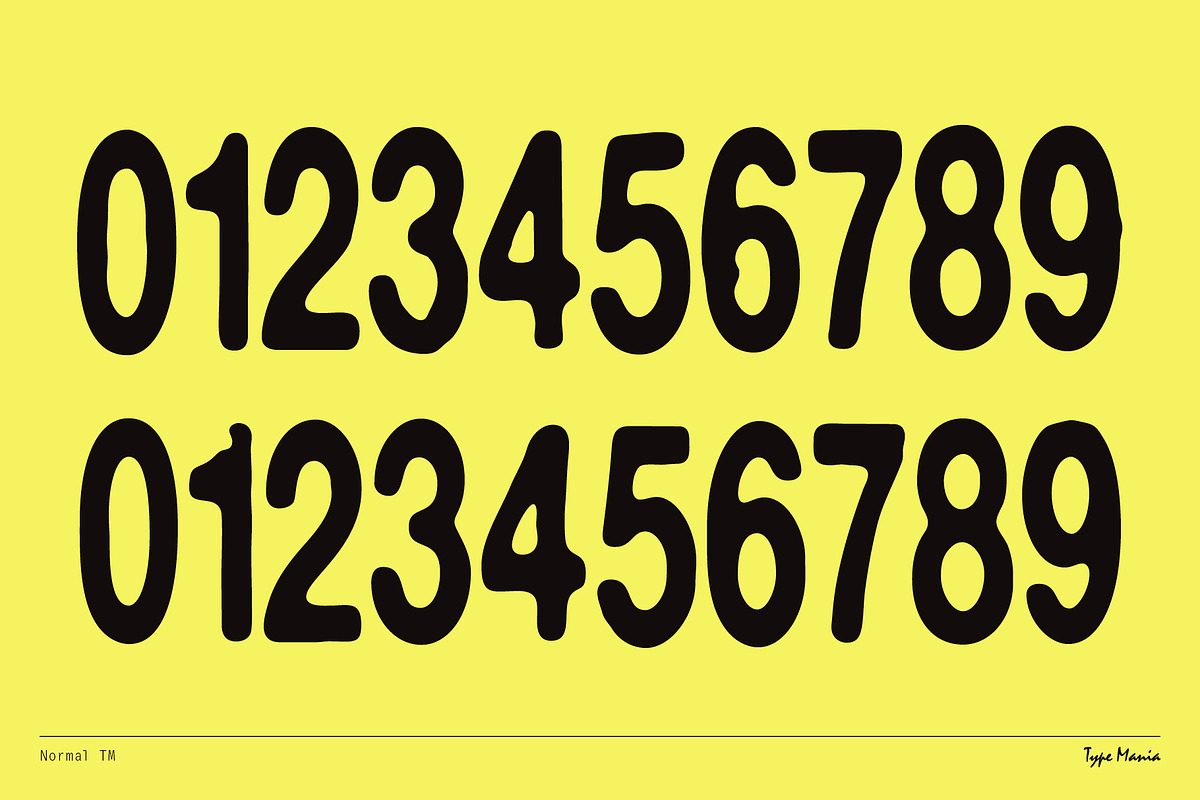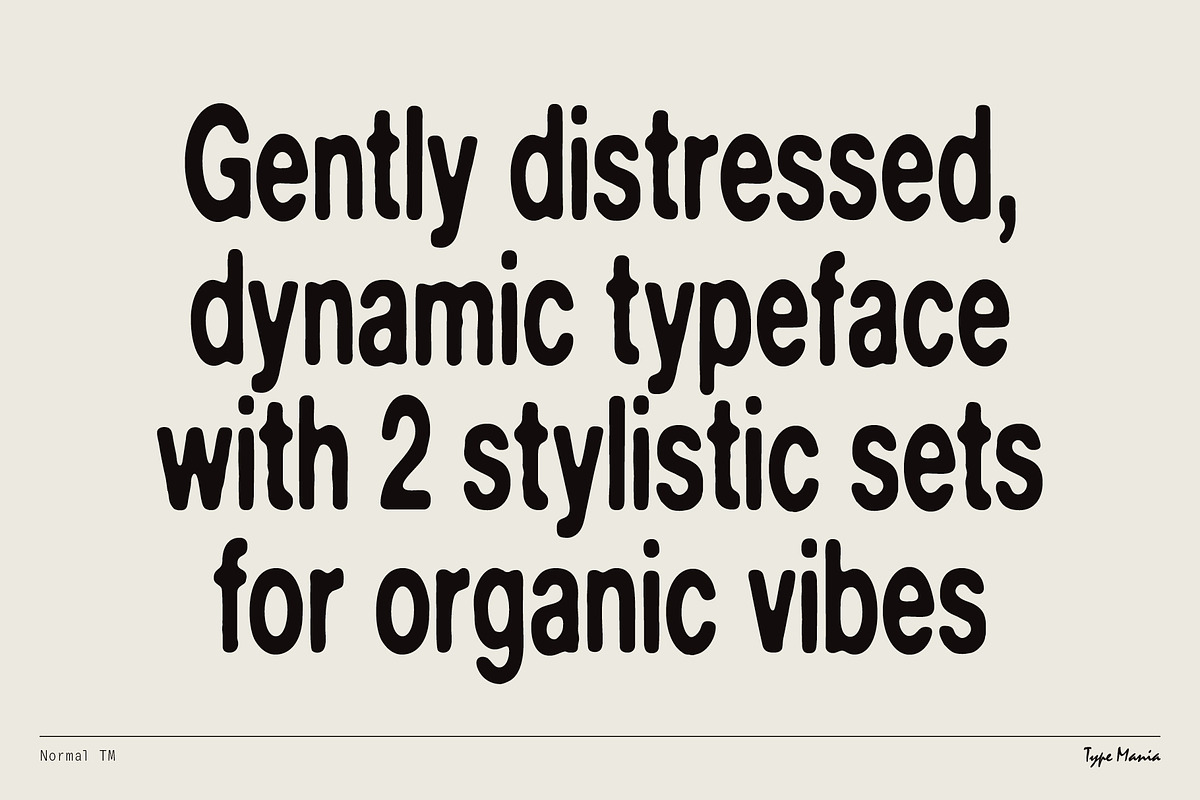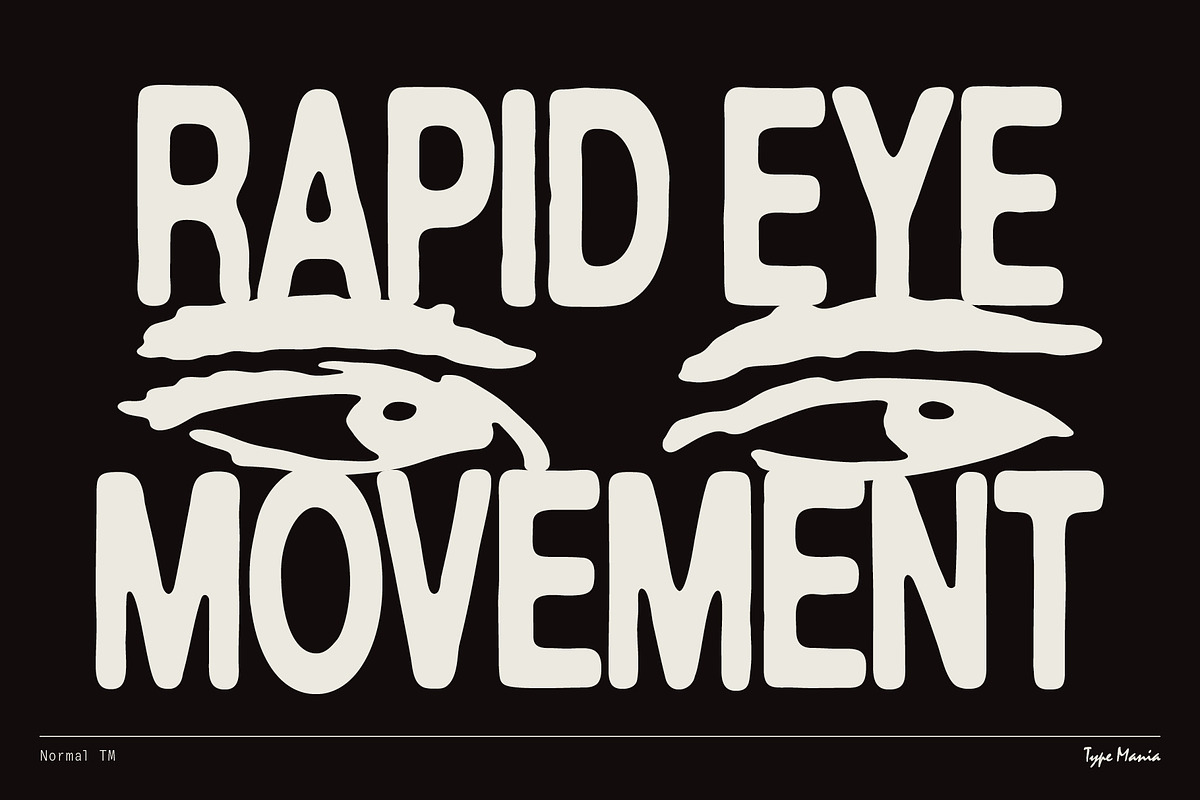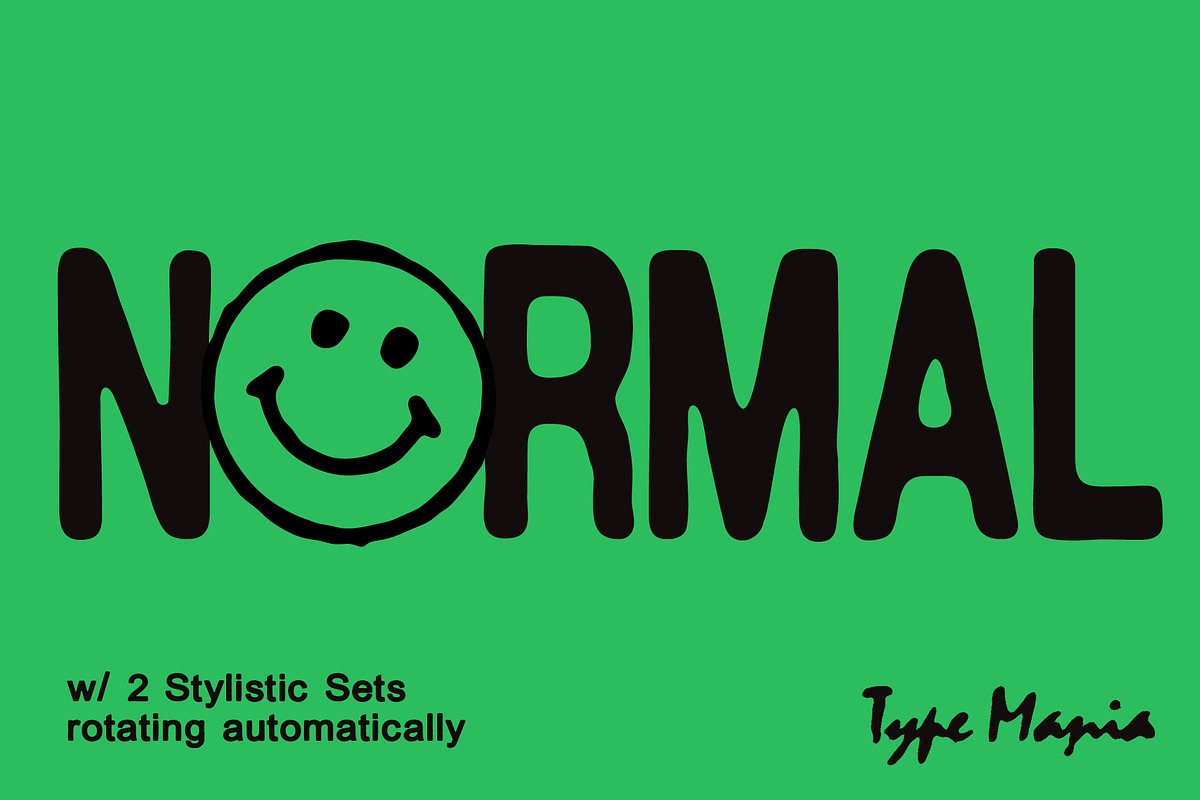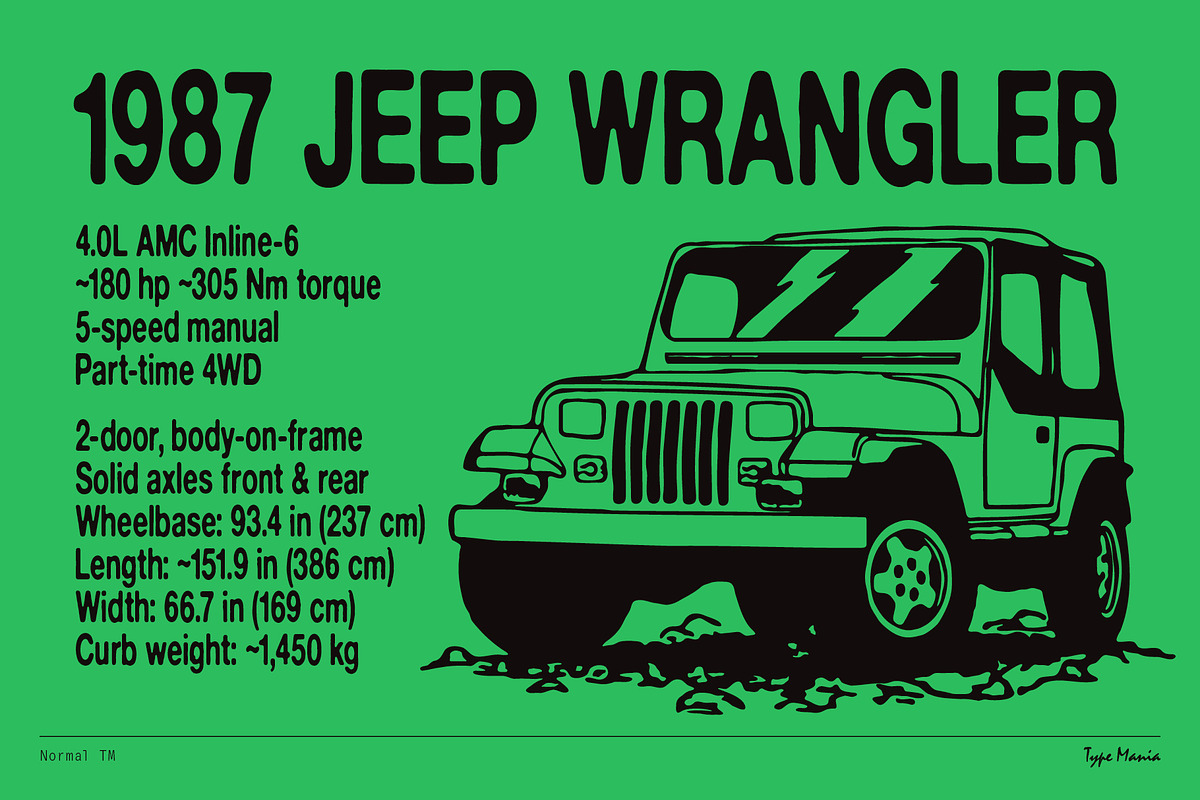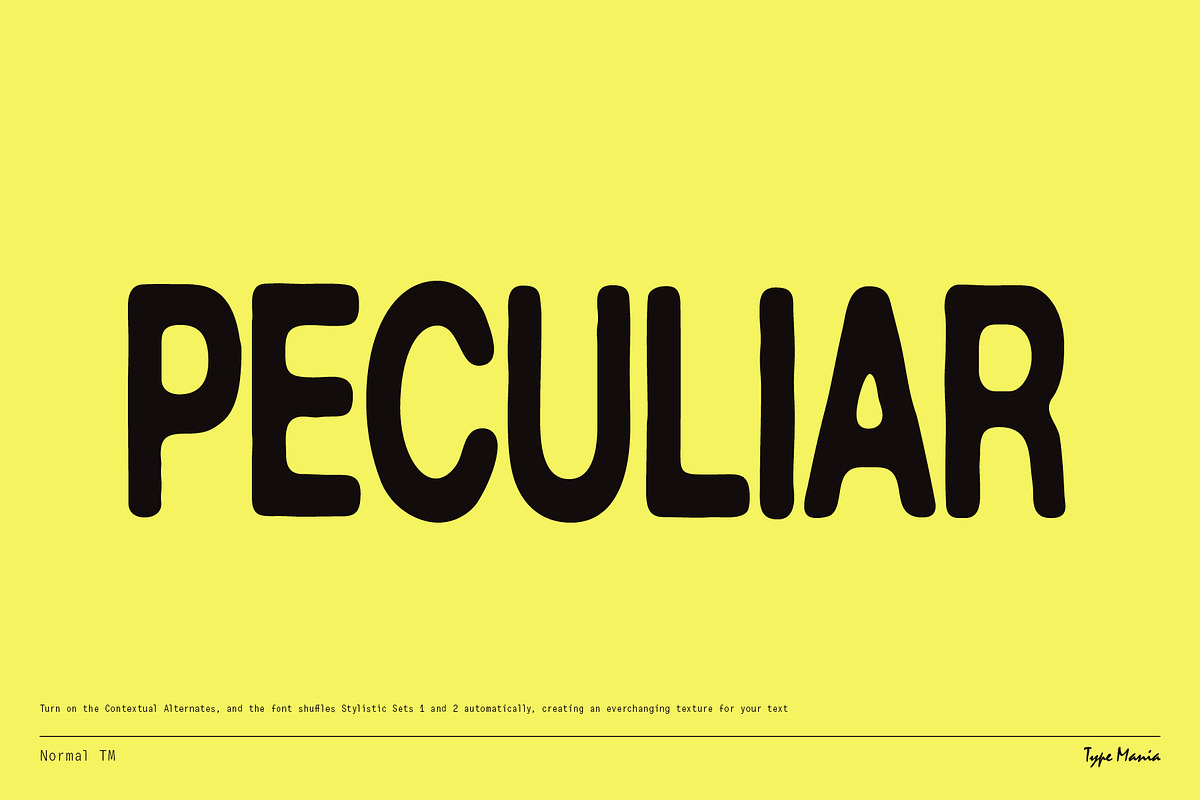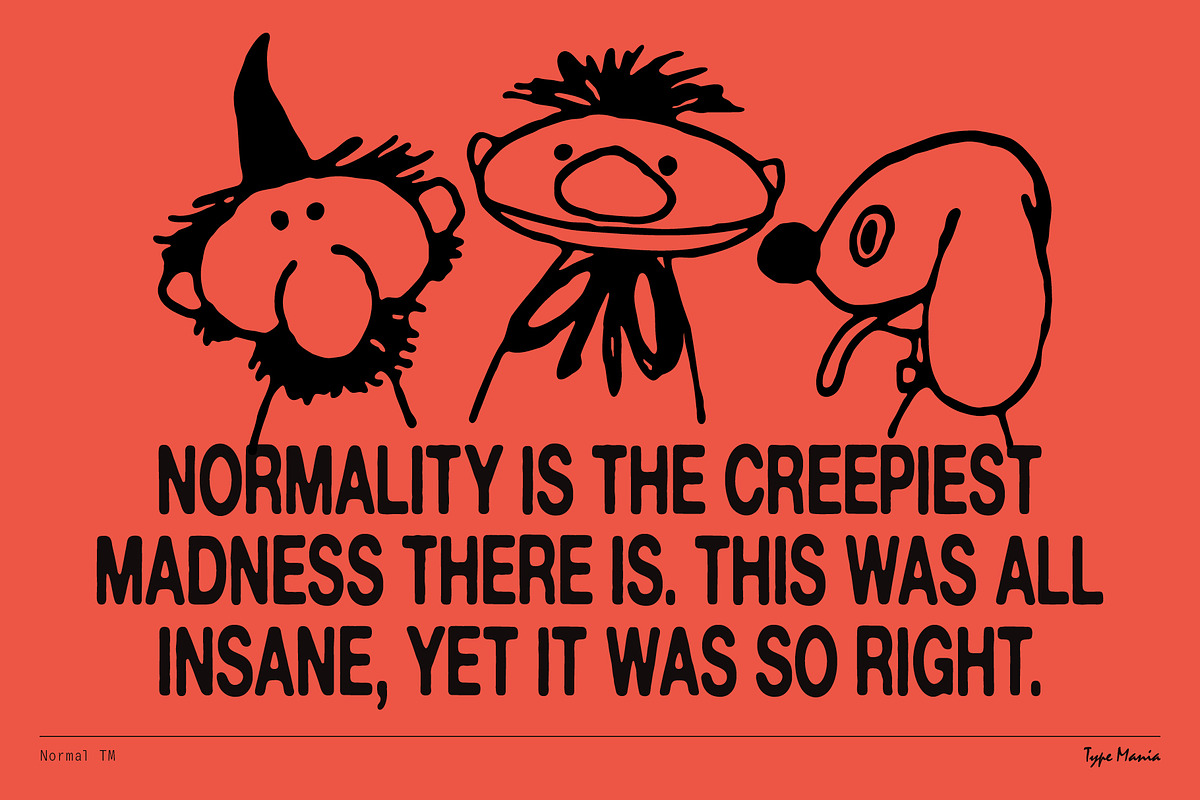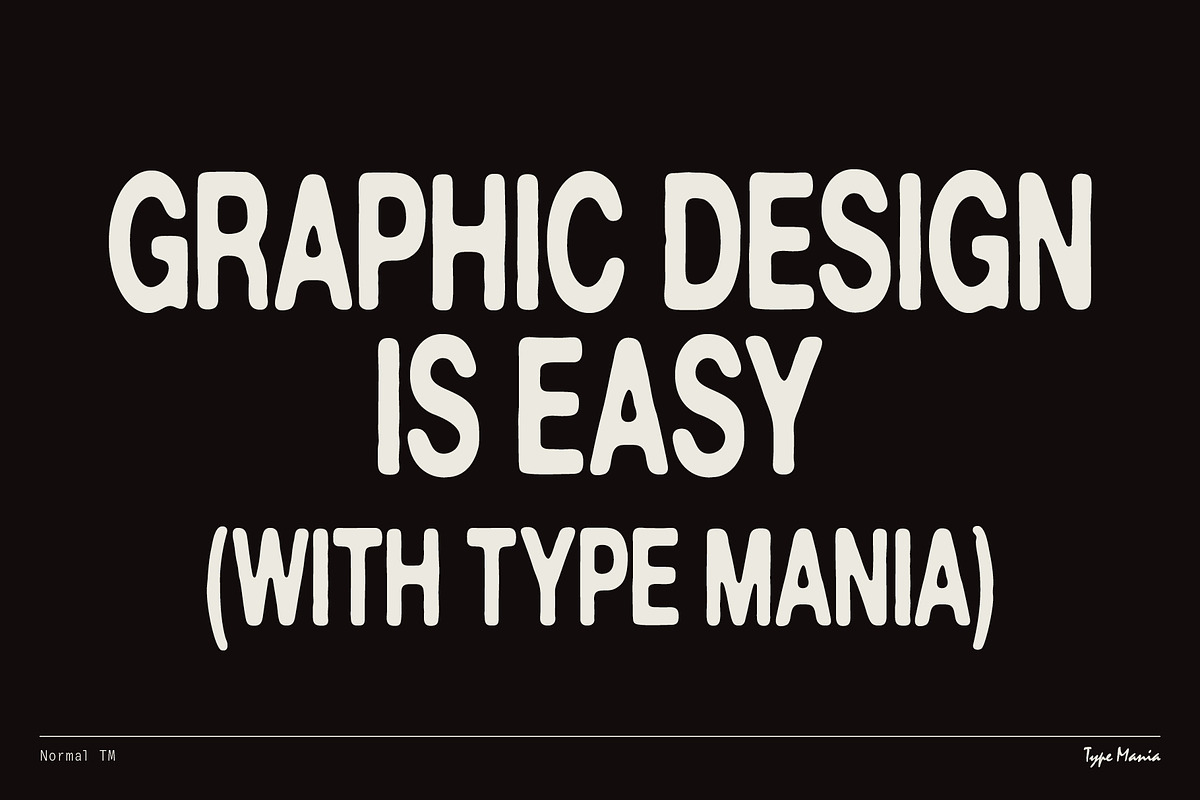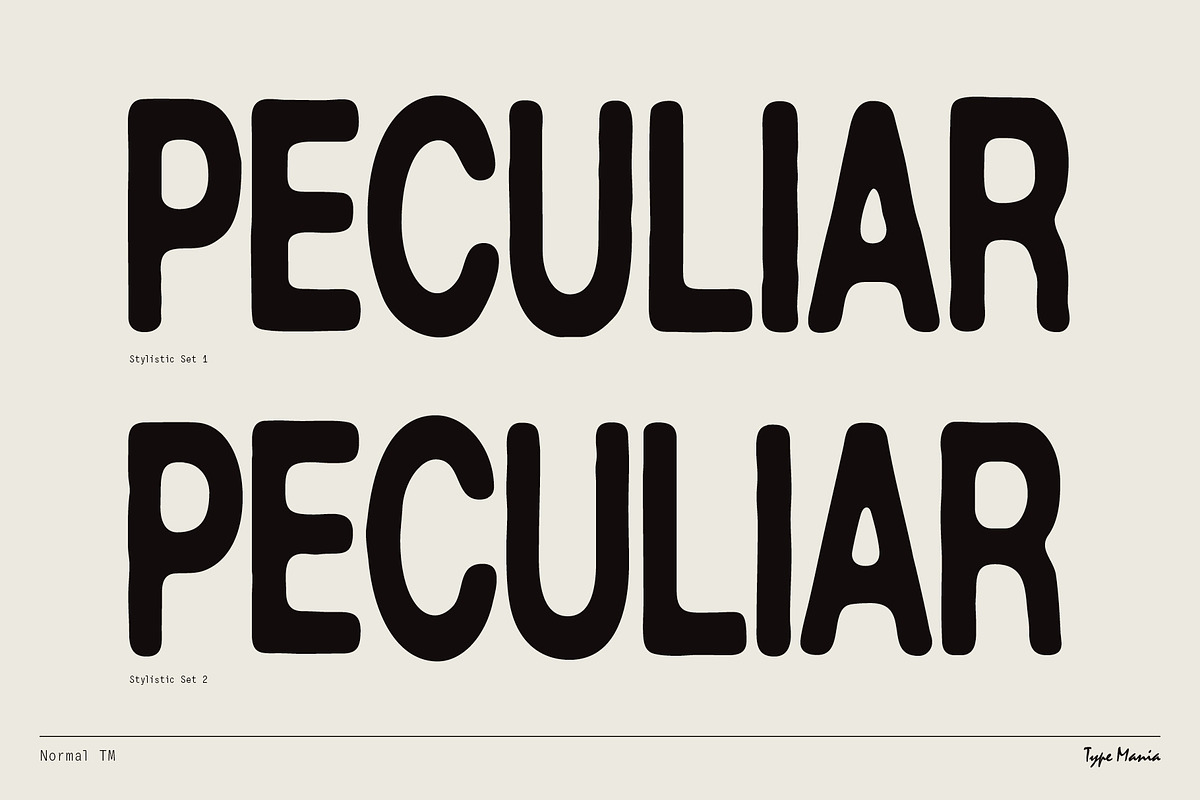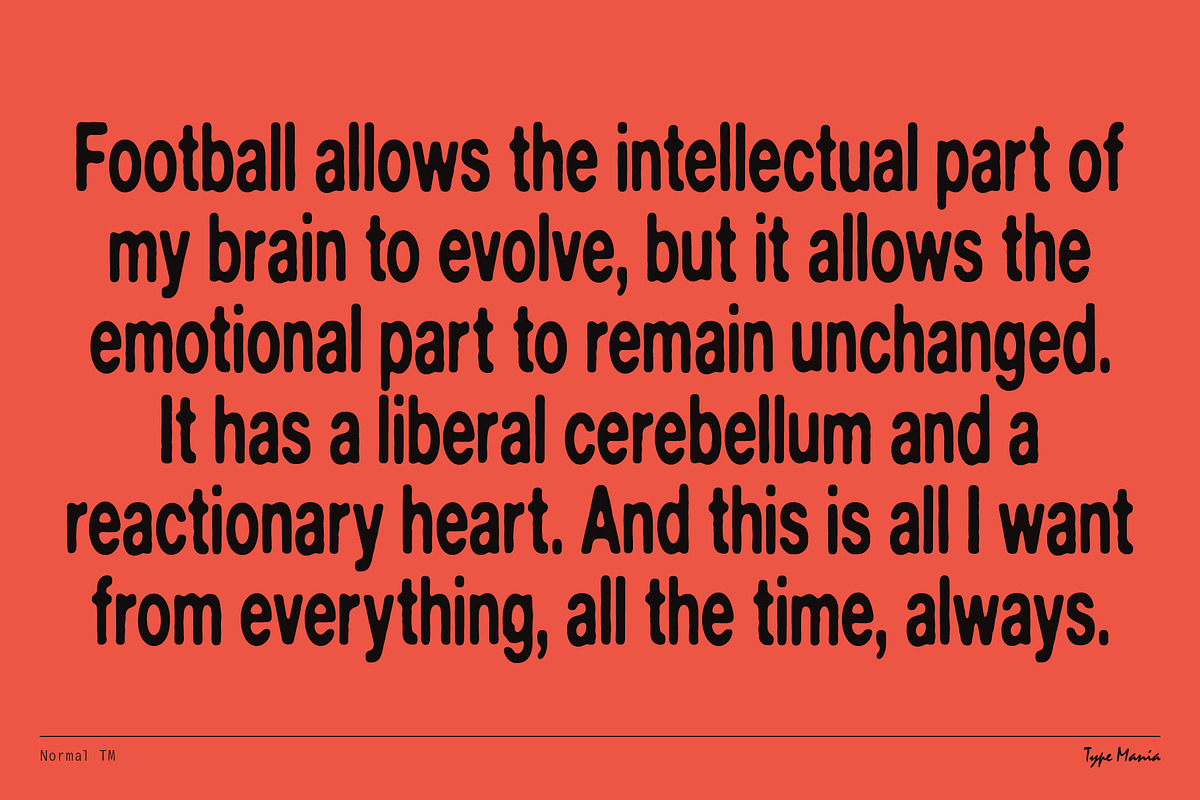
Normal TM – Gently Handled Grotesk
A gently handled sans serif Normal TM rotates two stylistic sets with contextual alternatives fired up, making your layout look organic, damn near automatic.
OpenType features
- 2 stylistic sets
- The font is programmed to automatically shift between the stylistic sets
Languages
- Basic Latin
- Western European
- Euro
- Central European
- Pan African Latin